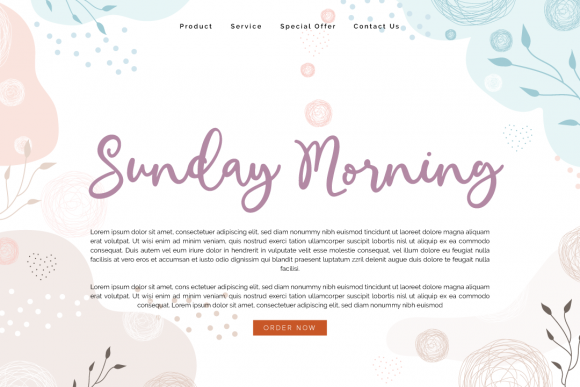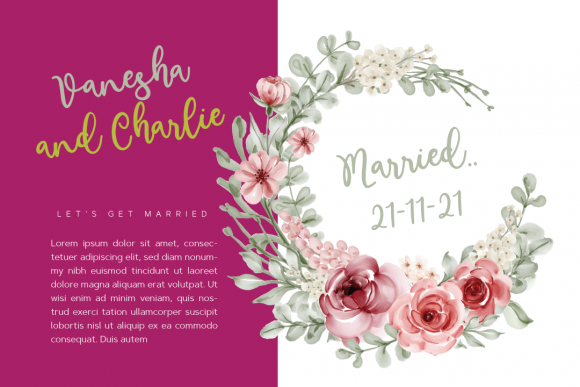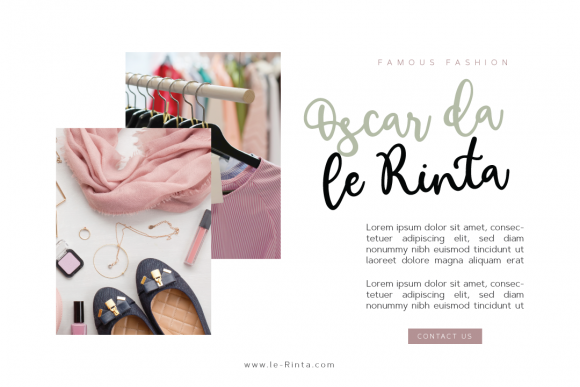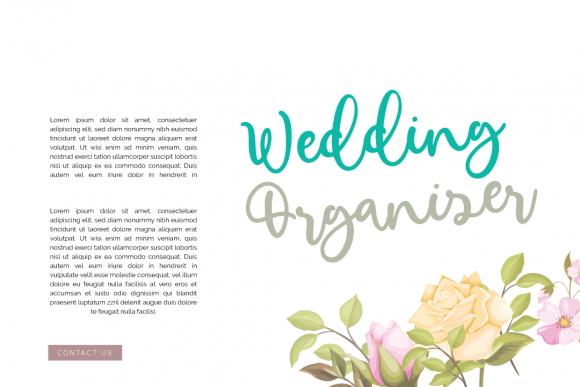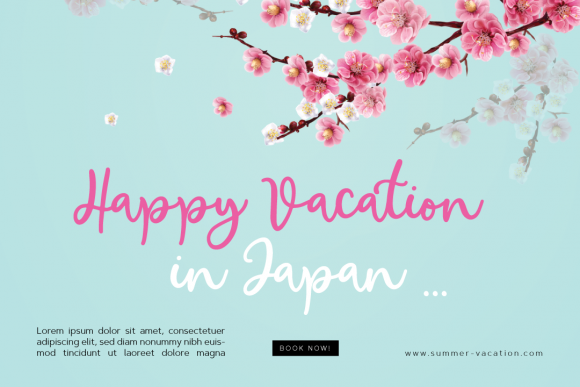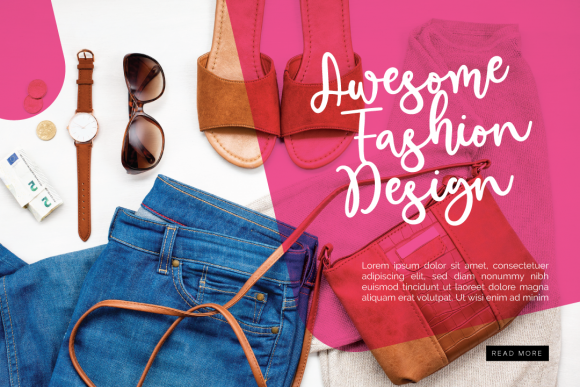
Introduction to Lesthary Font
Lesthary is a unique and elegant handwritten font.
It looks beautiful on a variety of designs requiring a personalized style, such as wedding invitations, thank you cards, weddings, greeting cards, logos and so on .
Key Features of Lesthary Font
Why Choose Lesthary Font?
Lesthary Font offers exceptional quality and versatility, making it a valuable addition to your design toolkit. Whether you’re creating for personal projects or commercial use, Lesthary Font delivers professional results.